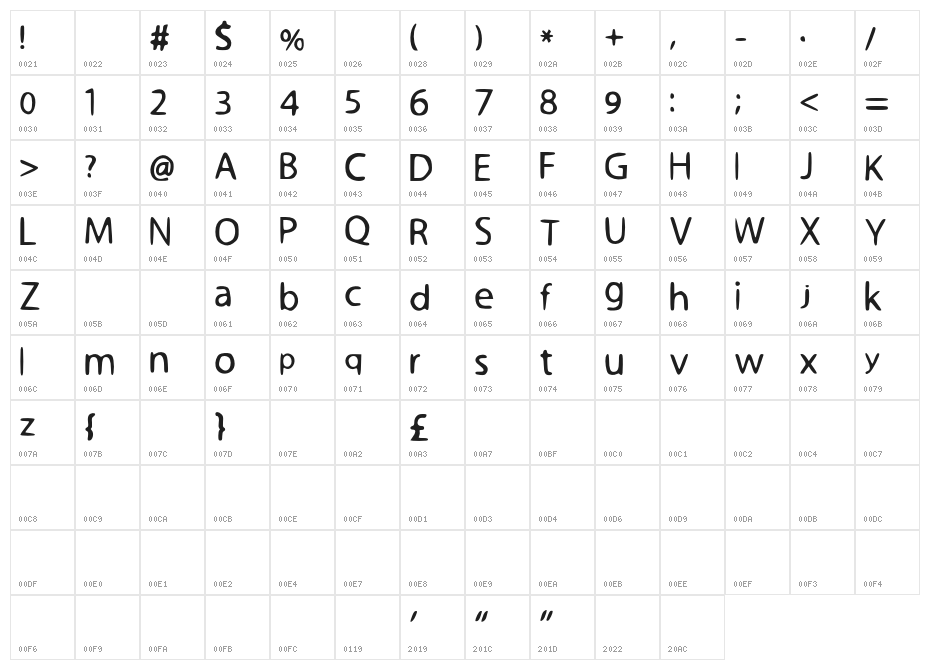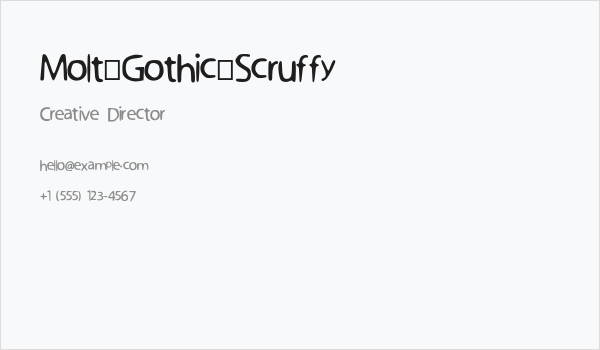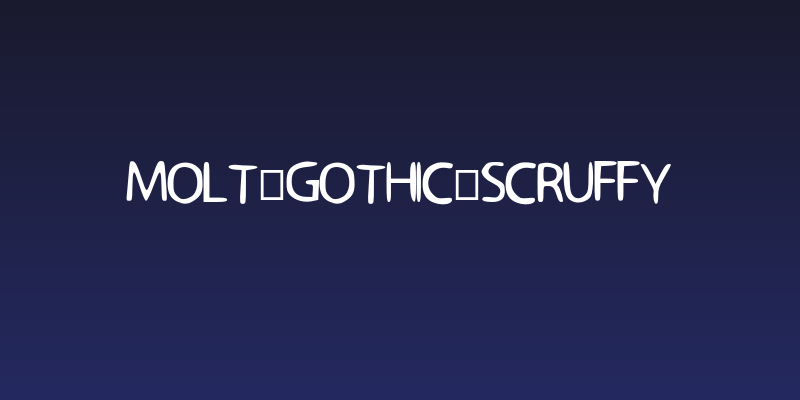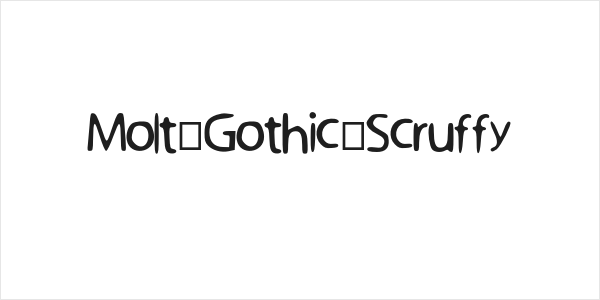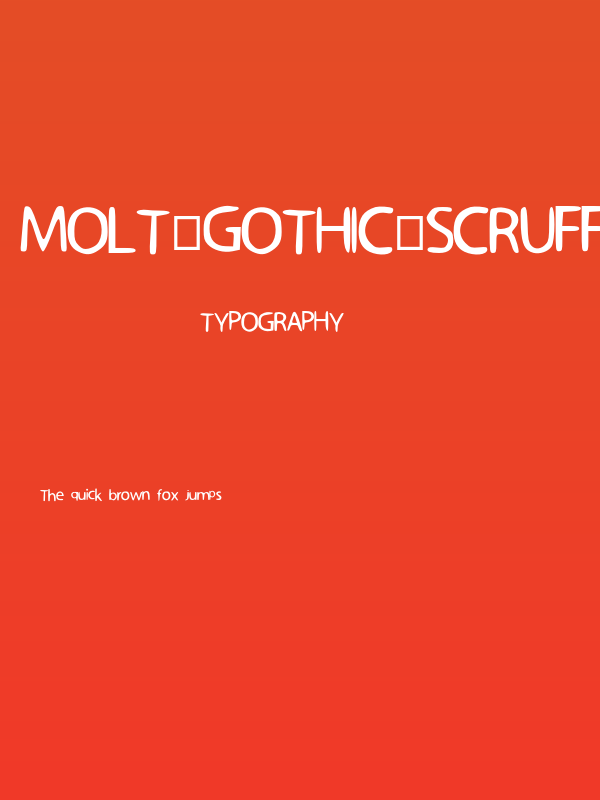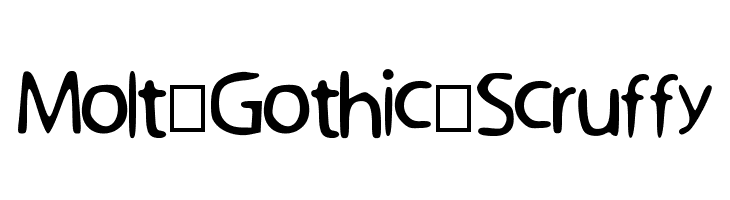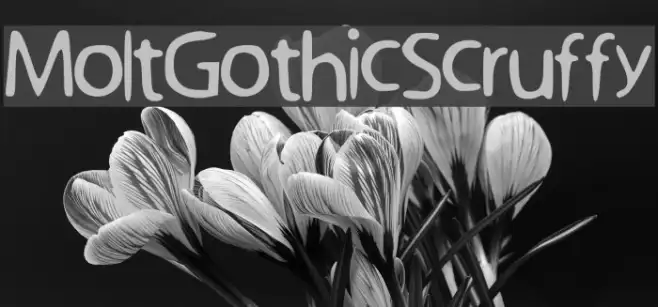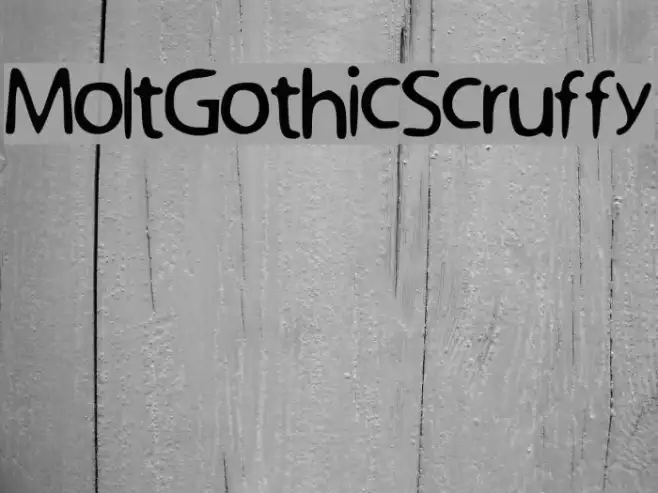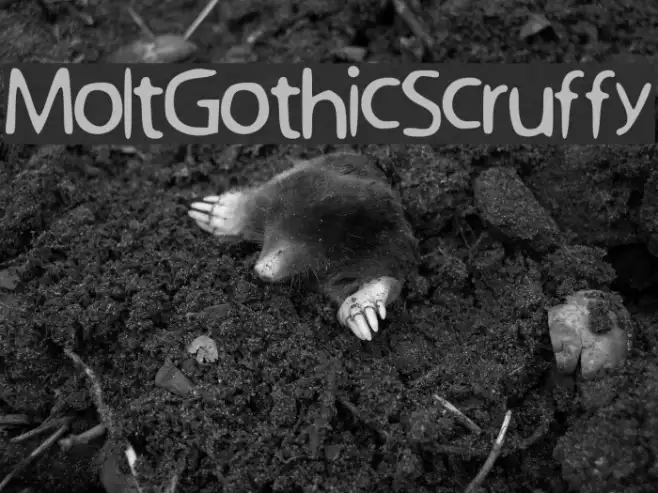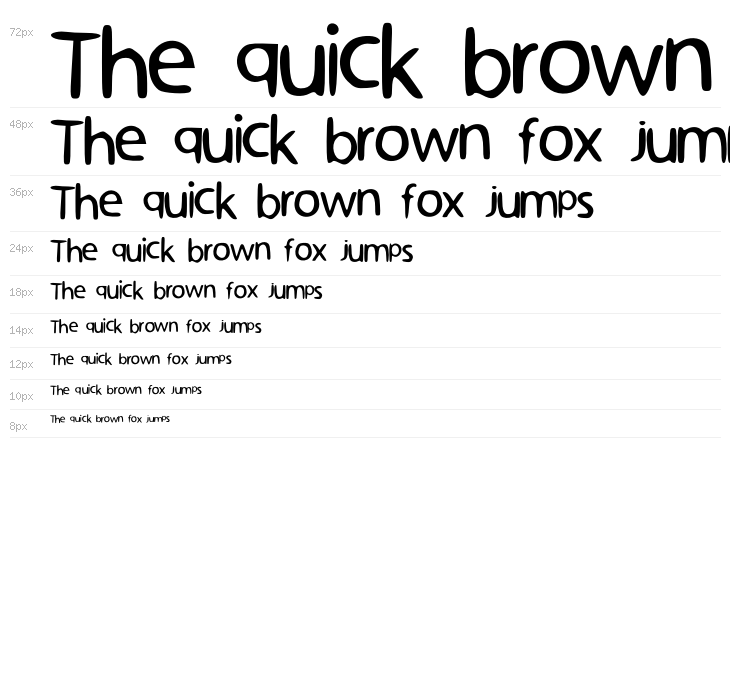
Molt_Gothic_Scruffy Font
Molt_Gothic_Scruffy Description
This font features a playful and slightly irregular design, characterized by its rounded and uneven strokes. The letters have a hand-drawn appearance, giving them a whimsical and casual feel. The uppercase and lowercase letters maintain a consistent style, with the curves and angles providing a sense of movement and energy. The numerals and special characters follow the same aesthetic, ensuring a cohesive look across all elements. This font's unique style makes it stand out, offering a creative and informal vibe.
| Proposed Projects | Ideal for children's books, casual invitations, playful branding, and creative posters. |